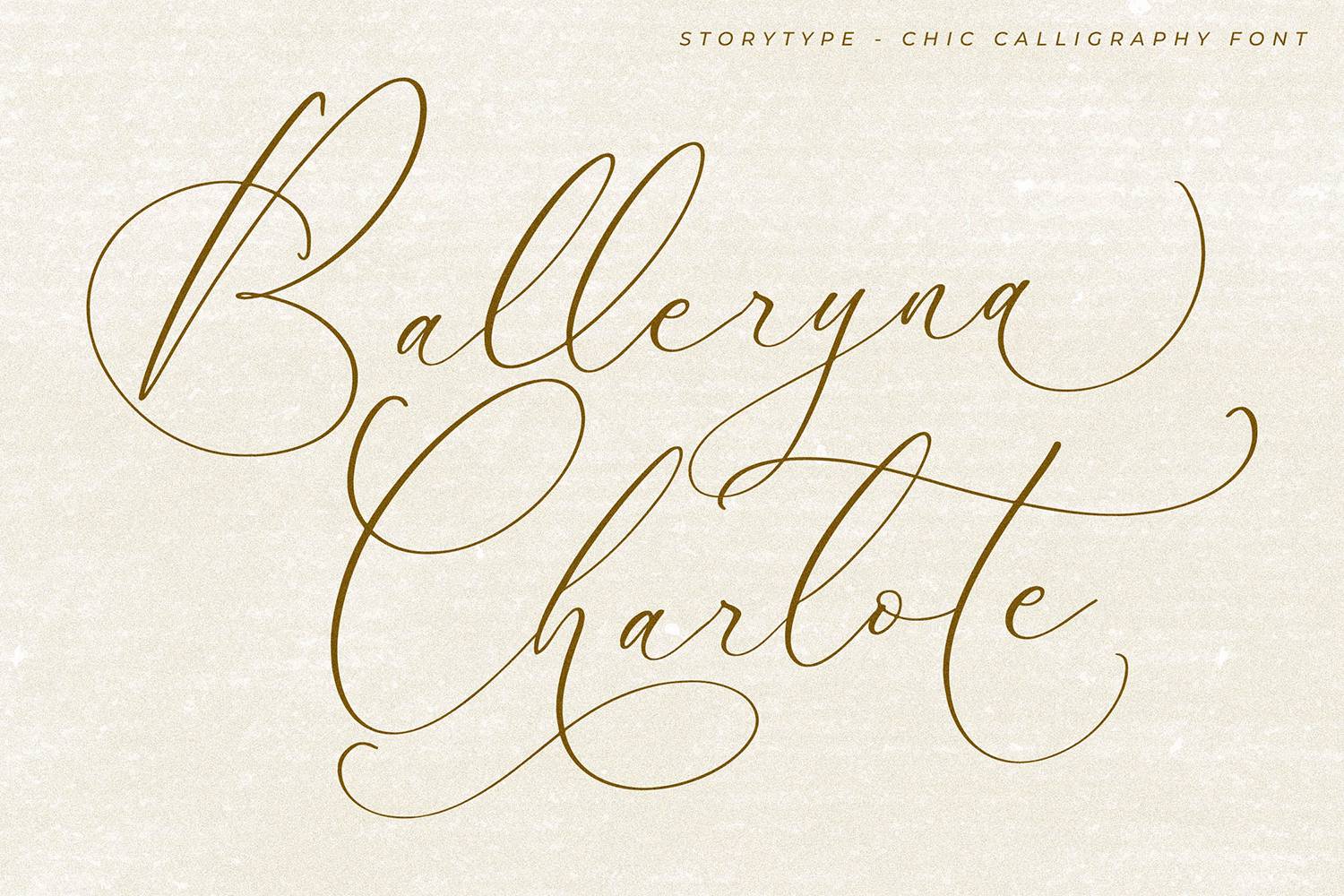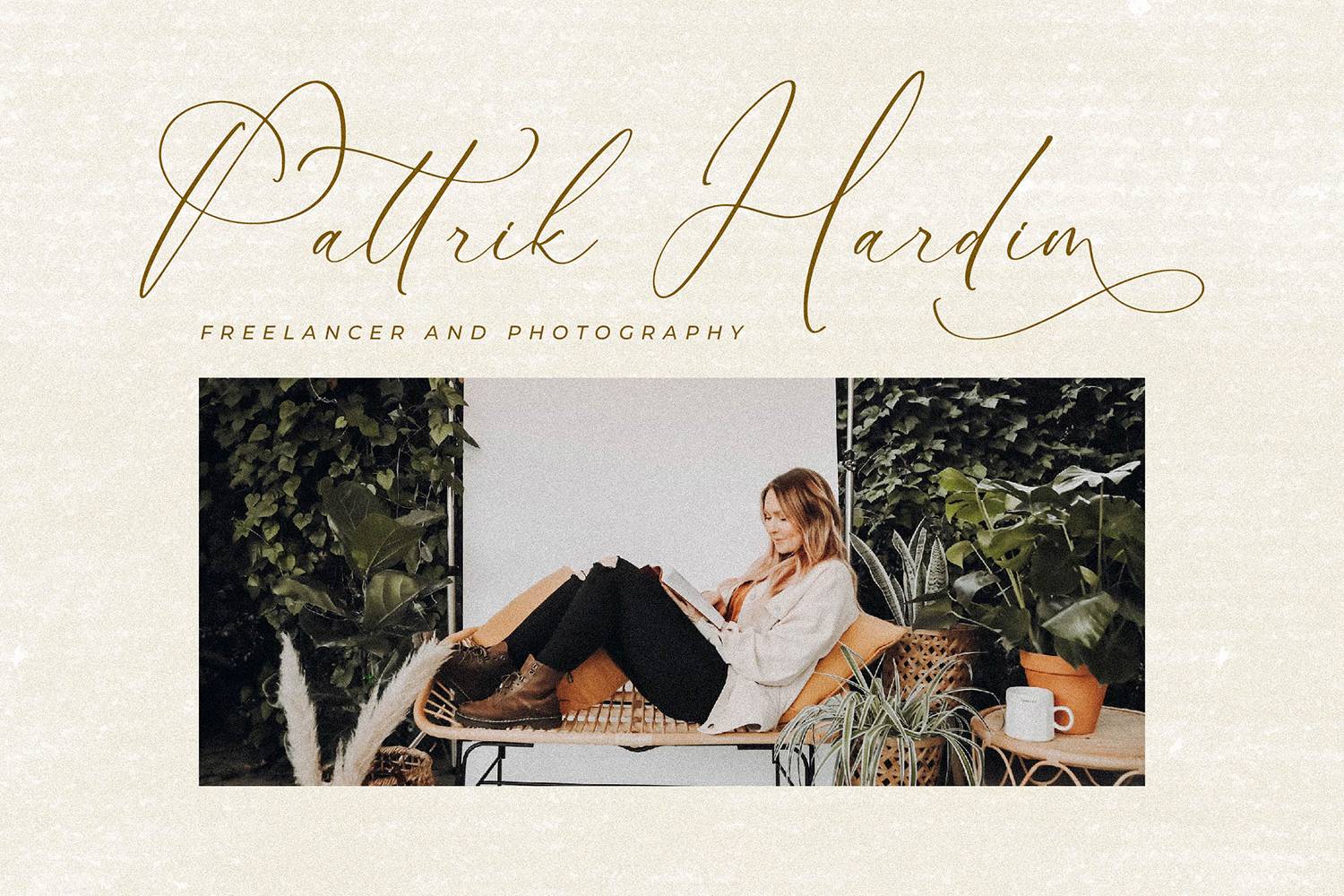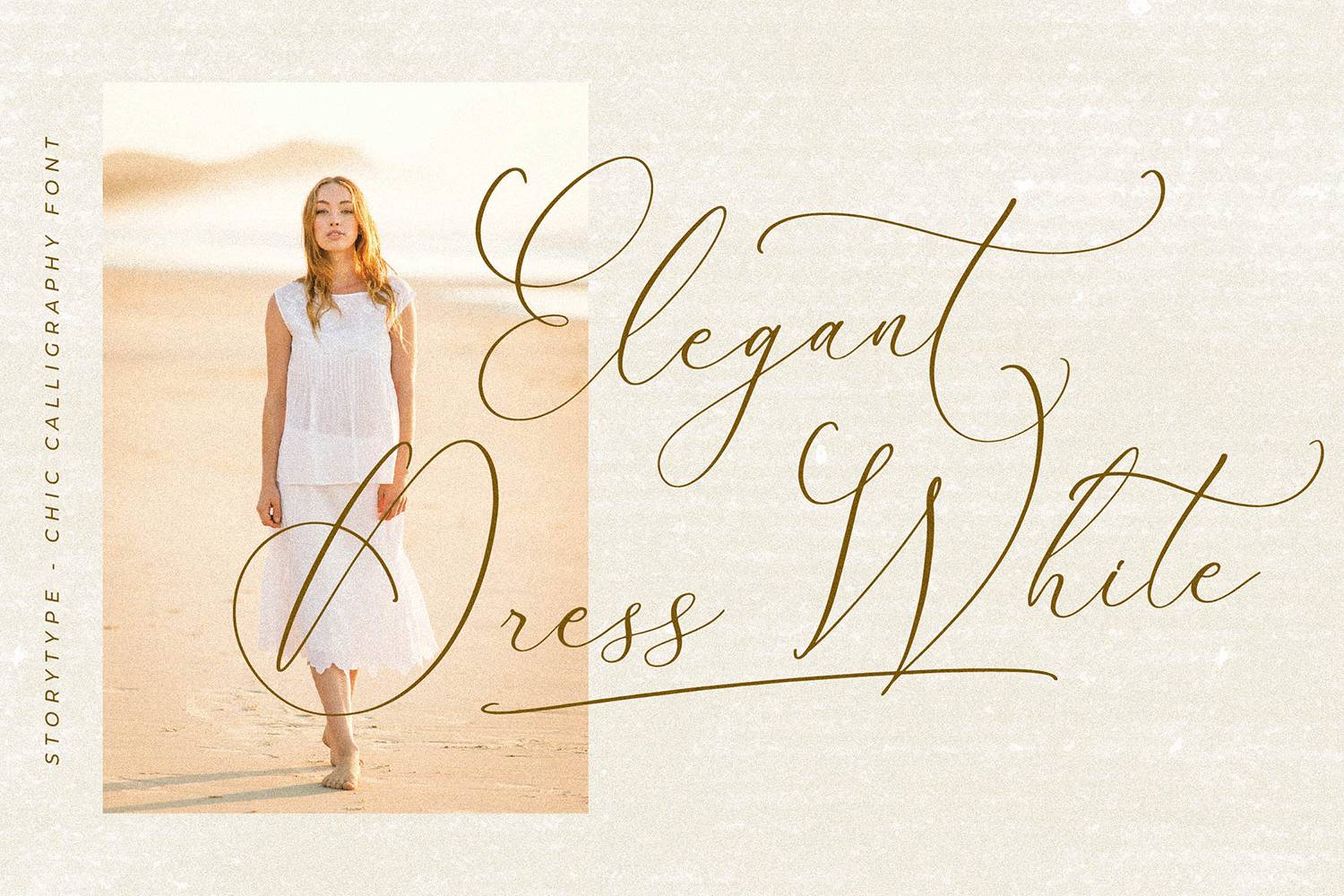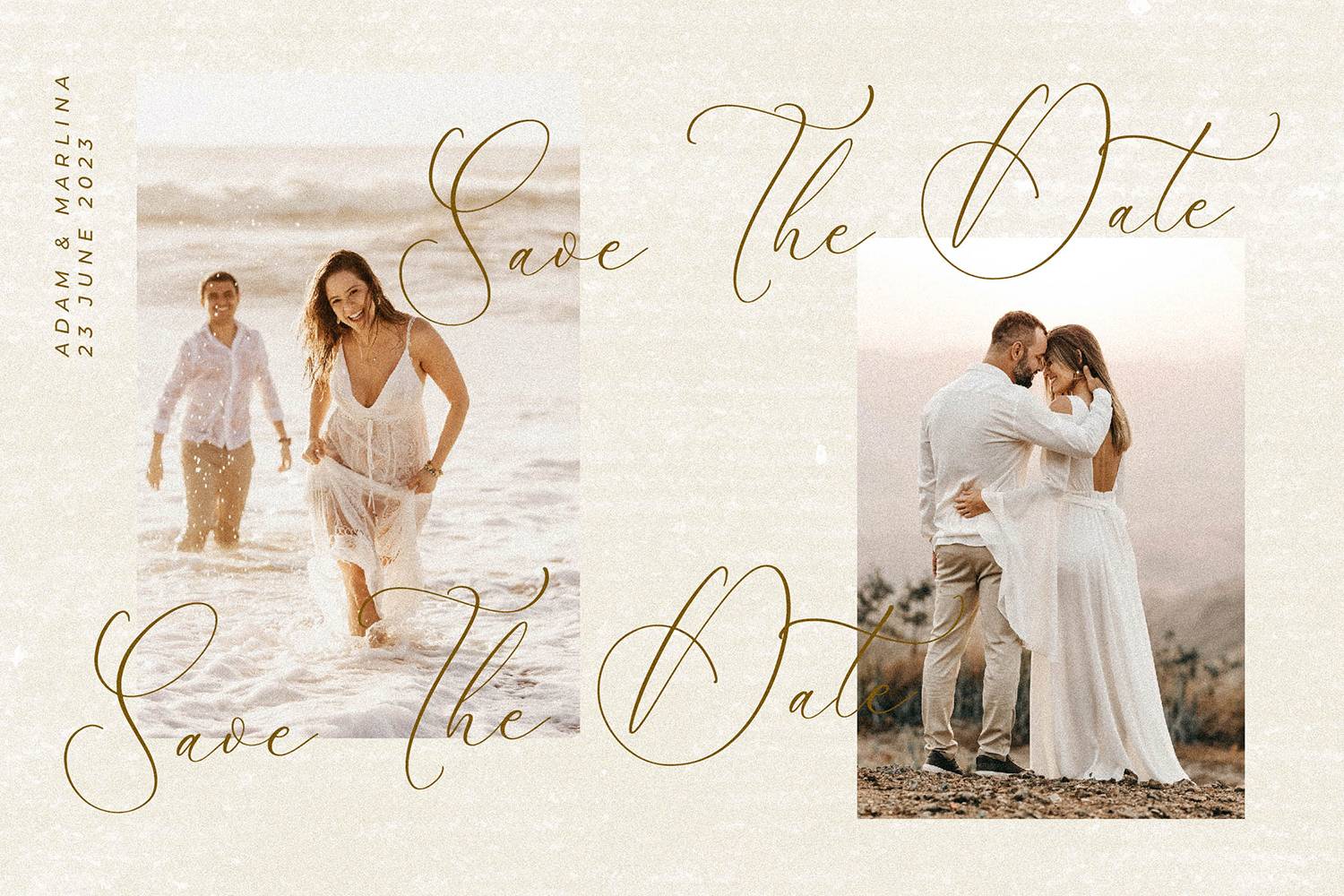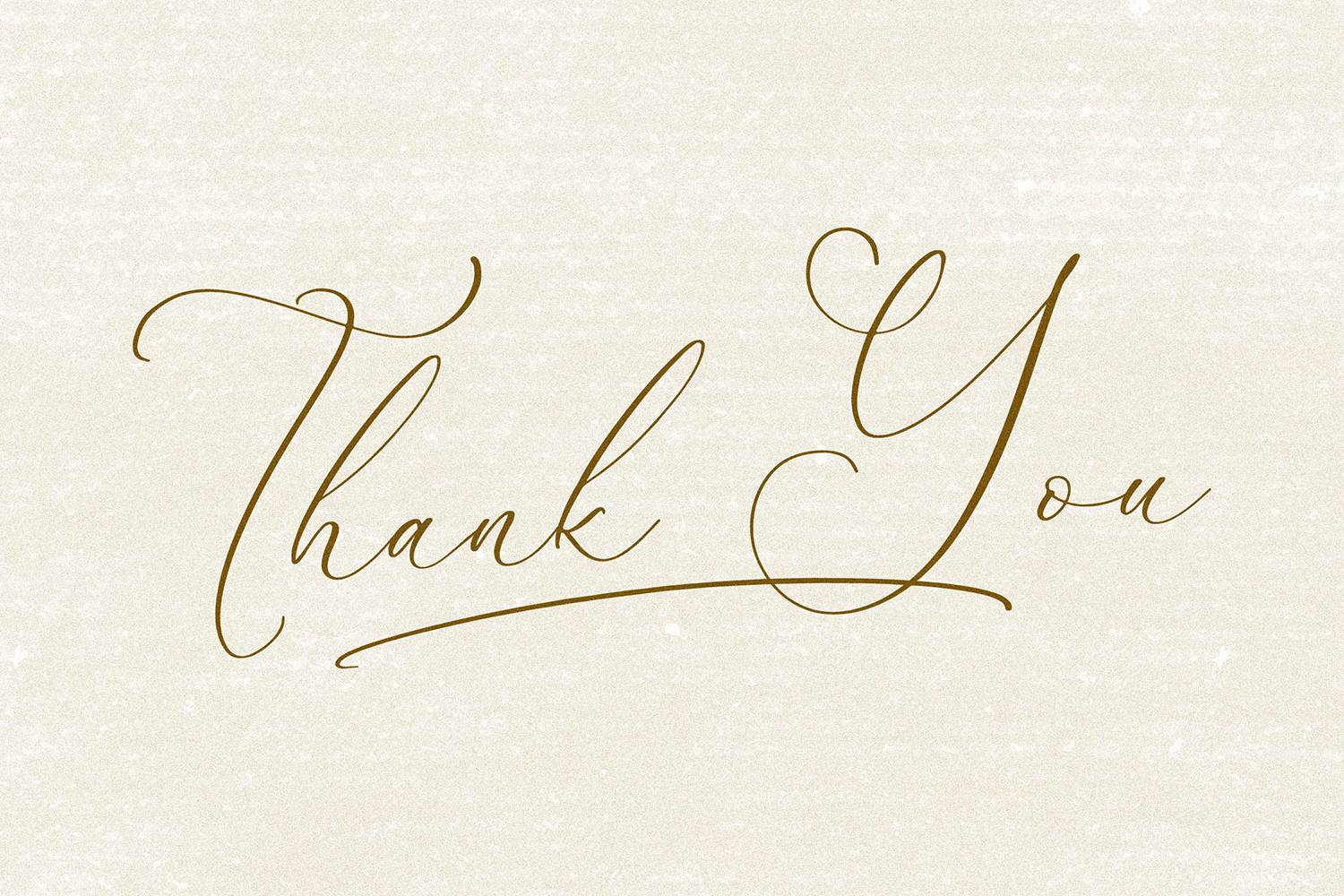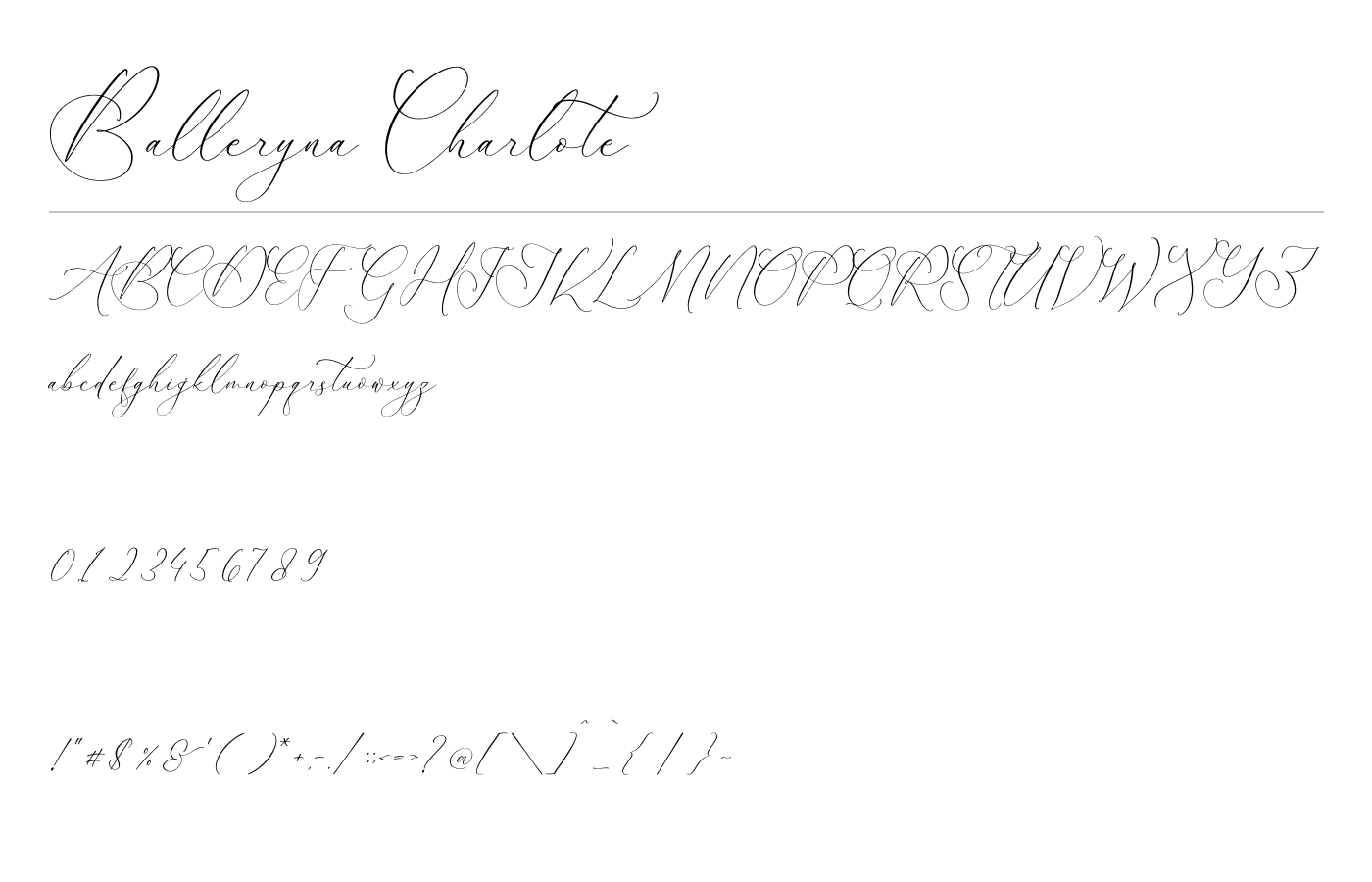
Balleryna Charlote is an elegant, delicate script font characterized by its thin, flowing strokes and intricate swashes that convey a refined, graceful personality. Its tall, slender letterforms with a light weight create a sophisticated and airy feel, making it perfect for luxury branding, wedding invitations, and high-end editorial designs that seek a classy and romantic touch. This font excels in display settings where a stylish, handwritten elegance is desired to evoke emotion and timeless beauty.
Balleryna Charlote Font
About Balleryna Charlote Font